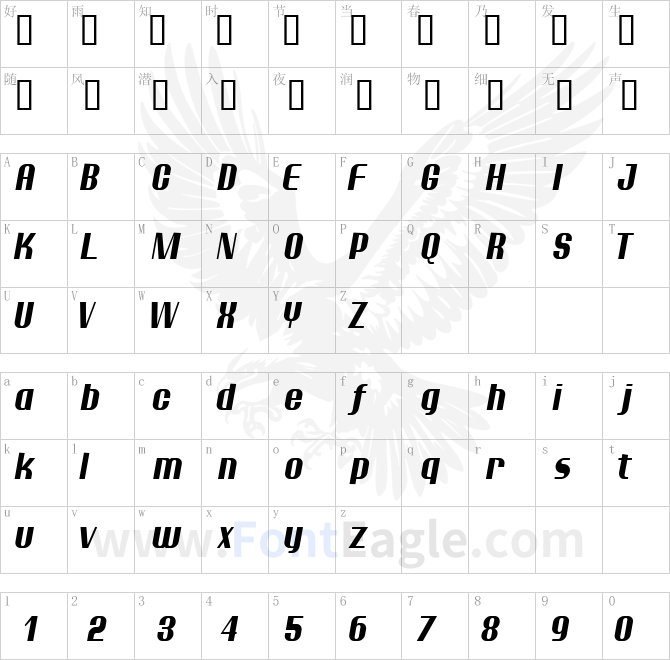
- Font name:Ptarmigan Condensed
- Font Subfamily ID:TMF Ptarmigan Condensed Italic
- Font Full Name:Ptarmigan Condensed Italic
- Postscript:PtarmiganCondensedItalic